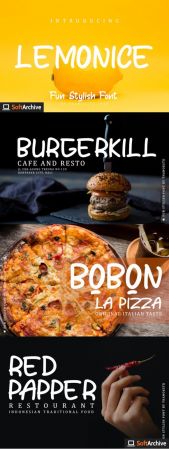
DesignOptimal - Lemonice Font
DesignOptimal.com - Lemonice Font
Lemonice is an incredibly fun and smooth handwritten font. Fall in love with its authentic feel and create outstanding crafting projects.